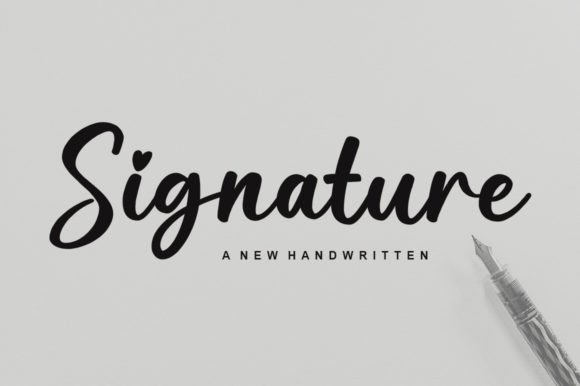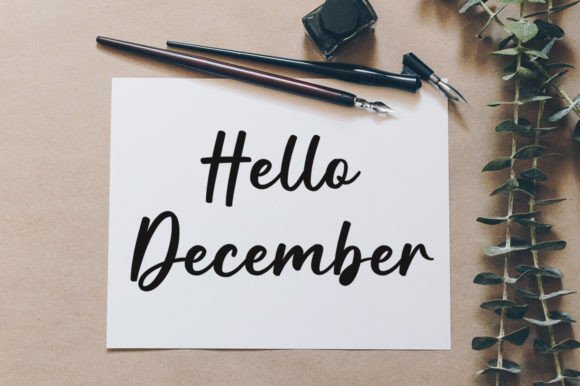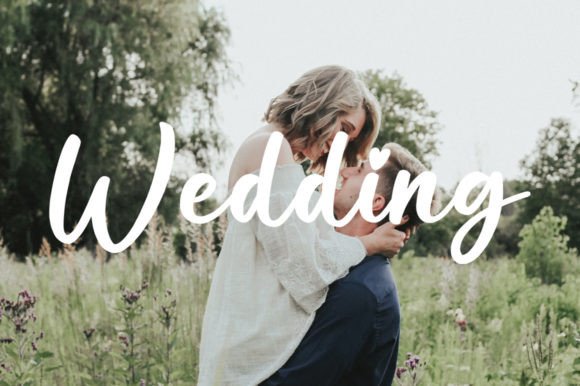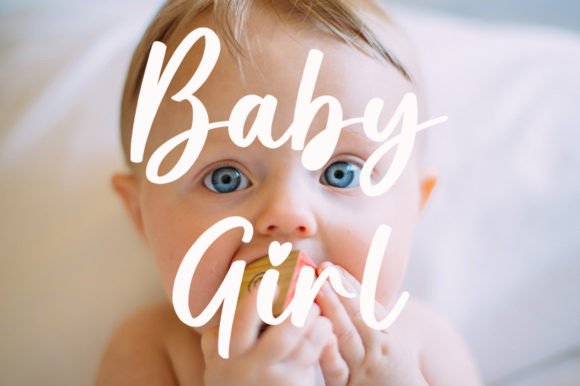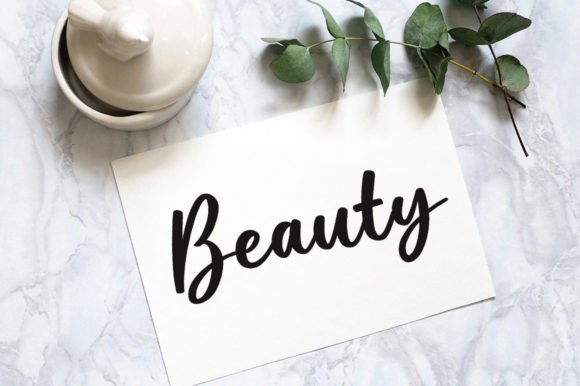
About Signature Font Download
The Signature Font Download is a sweet and beautiful handwritten script that adds a luxury spark to your creative projects. With its elegant flow and characters that dance along the baseline, it provides a modern and stylish look. Because of its refined design, Signature is suitable for invitations, logos, branding, greeting cards, and digital content.
A Beautiful Handwritten Script with Elegance
Signature captures the grace of handwritten calligraphy while maintaining a contemporary touch. Unlike standard fonts, this Signature script font offers a stylish rhythm that feels both personal and professional. As a result, it works beautifully across many design needs.
Invitations and cards always look more heartfelt with handwritten typography. The Signature Font is ideal for wedding stationery, thank you notes, and birthday greetings. Moreover, its delicate strokes add romance and sophistication to each design.
Branding and Logo Design with Signature Font
Typography helps define the identity of a brand. The Signature handwritten font works perfectly for boutique logos, product packaging, and advertising materials. In addition, it creates a luxurious yet approachable brand personality, making it a favorite among modern businesses.
Posters, Titles, and Display Projects
Large projects need fonts that stand out without losing charm. The Signature Font Download performs well in posters, flyers, and magazine titles. At the same time, it keeps its clarity in smaller text, making it versatile for every context.
In the digital era, fonts must also shine online. The Signature typeface integrates seamlessly into Instagram posts, YouTube thumbnails, Pinterest graphics, and blogs. Because of its sweet handwritten style, it adds personality to digital projects.
Why Designers Choose Signature Typeface
Designers often choose fonts that balance elegance with readability. Many handwritten scripts lose clarity at smaller sizes, but the Signature handwritten script stays legible while maintaining its luxurious feel. This makes it a reliable option for professionals and hobbyists.
Add Luxury to Your Designs Today